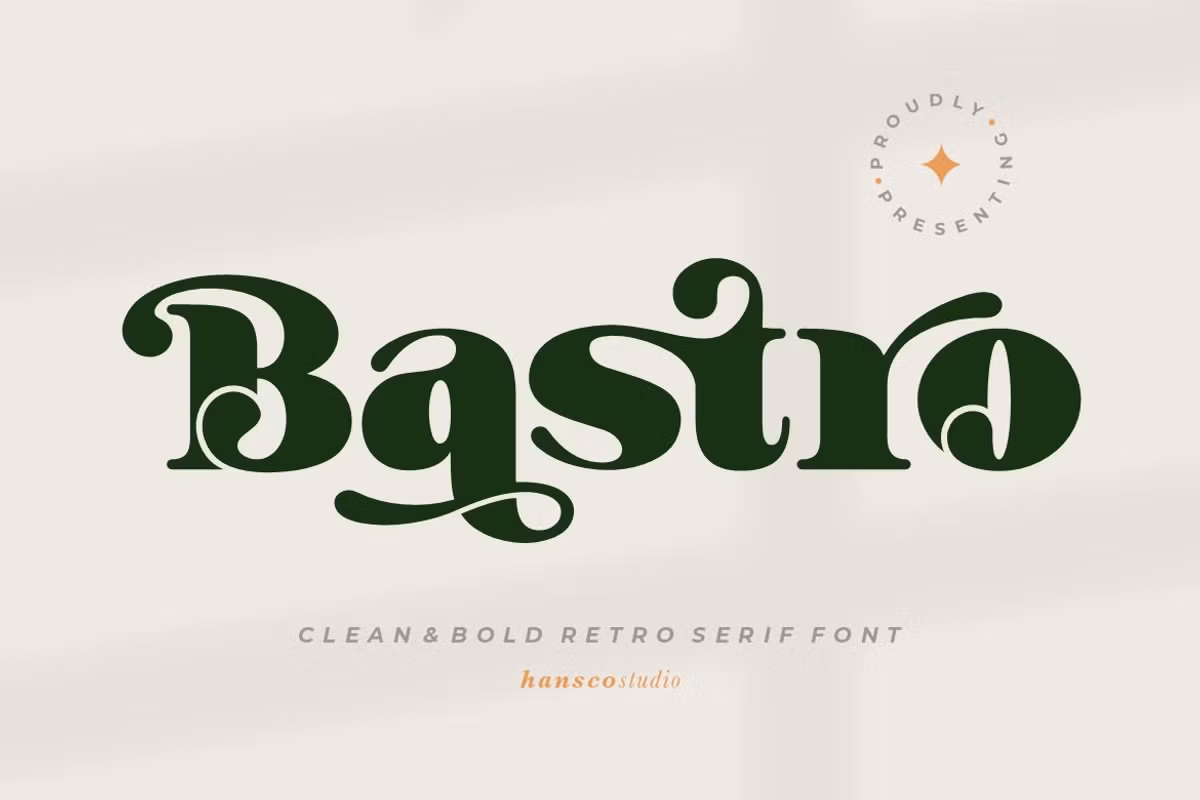
Bastro Font Free Download is a bold retro typeface that channels vintage energy with a modern twist. Featuring thick strokes, nostalgic curves, and a strong visual presence, Bastro is perfect for poster designs, branding, t-shirts, album covers, signage, and any creative project that craves a groovy throwback feel.
Inspired by 70s and 80s pop culture, Bastro Font Free Download adds instant personality and flair to your designs. Its chunky letterforms and retro aesthetic make it a standout choice for titles and logos that need to grab attention and exude cool, vintage vibes.
Bastro works great on both digital and print mediums, and pairs well with script or condensed sans-serif fonts for a dynamic, layered look. Whether you're designing for a music event, a nostalgic brand, or a bold statement piece, Bastro delivers with style and confidence.